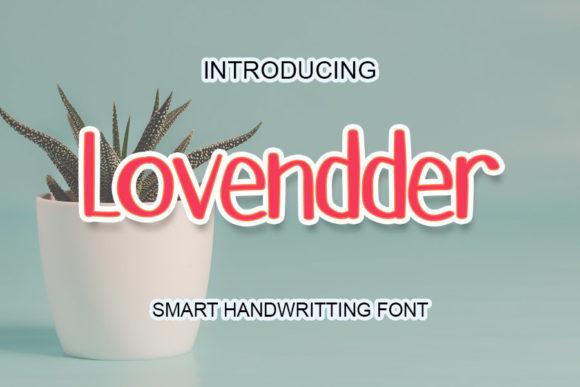
Prepare yourself to fall head over heels for the Lovendder font, a captivating script that will infuse your designs with an irresistible touch of whimsy and charm. This enchanting font, meticulously crafted by the talented hand of shiddiq.art, exudes a playful spirit that will elevate your projects to new heights.
At its core, Lovendder is a font that embraces individuality and creativity. Its playful nature lends itself seamlessly to a myriad of design possibilities, making it the perfect choice for those seeking to add a personal touch to their work. Whether you're designing eye-catching logos, crafting unique branding materials, or simply adding a touch of whimsy to your crafty DIY projects, Lovendder has the versatility to transform your vision into reality.
Beyond its undeniable charm, Lovendder is also incredibly easy to use. Its smooth, flowing lines and legible characters ensure that your designs will not only captivate but also convey your message with clarity and impact. It seamlessly adapts to a range of digital and print applications, making it the perfect companion for both personal and professional projects.
If you're an apparel designer seeking to create a lasting impression, Lovendder is the font you've been searching for. Its playful and memorable style will make your designs stand out from the crowd, attracting customers who appreciate the finer details. This font has the power to transform ordinary garments into extraordinary pieces, adding a touch of magic to every outfit.
Lovendder is more than just a font; it's an invitation to unleash your creativity and express your unique style. With its playful spirit and endless possibilities, this font will become your go-to choice for adding a touch of enchantment to all your projects. Embrace the magic of Lovendder today and let your designs blossom with charm and personality.